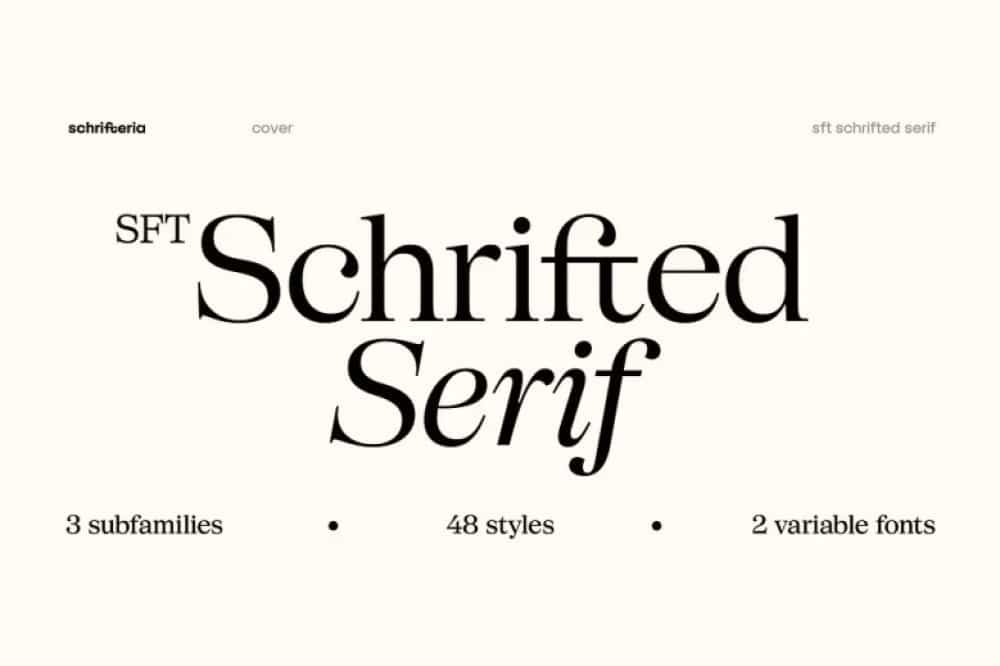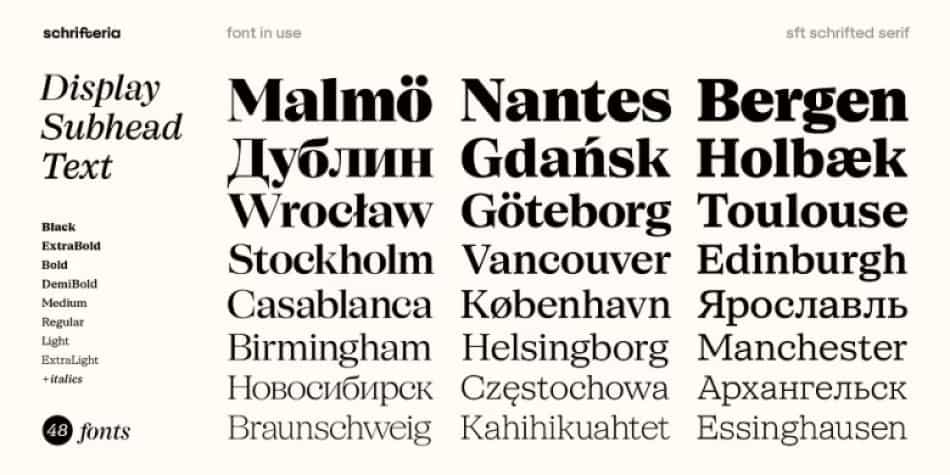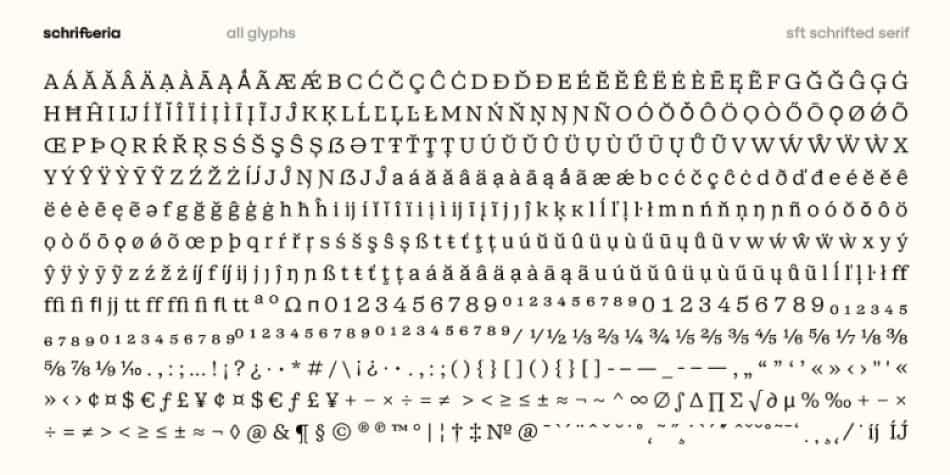
SFT Schrifted Serif – a serif font family, which is created in the style of the modern serif typography with the elements of elegance. SFT Schrifted Serif is based on the environment of Stockholm but with a romantic look, mainly influenced by the districts of Gamla Stan and Södermalm.